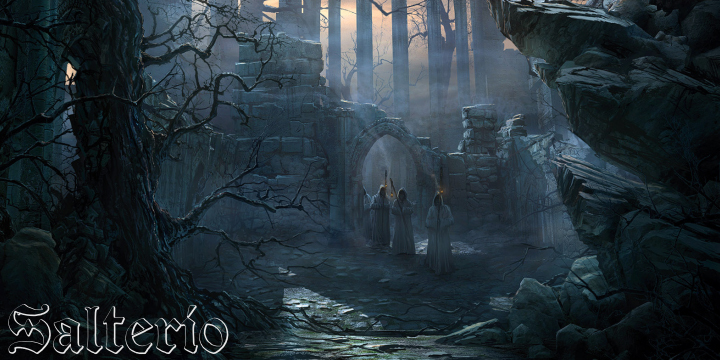
Salterio Gradient by Paulo W of Intellecta Design is a free decorative display font with serif forms and a striped interior treatment. Broad curves and sharp, sweeping serifs give the letters an elaborate, theatrical silhouette. The repeated horizontal gaps create a flickering engraved texture.
Poster lettering is its strongest role, especially for music events or stage productions with a vintage spectacle theme. The same striped detail can become part of album artwork, decorative packaging, and editorial covers, echoing ruled patterns or rays in the illustration. It is most convincing when the lettering itself supplies the poster's main ornament.
Intellecta Design researches and develops fonts based on historical and artistic forms.